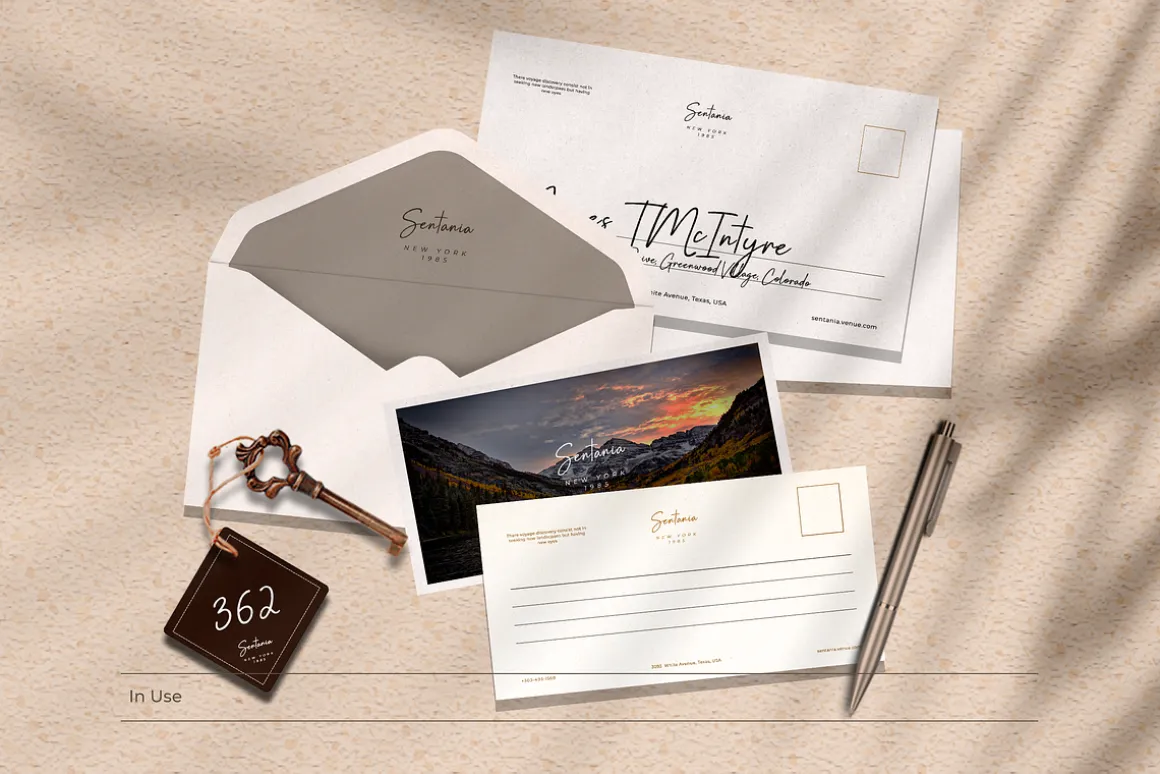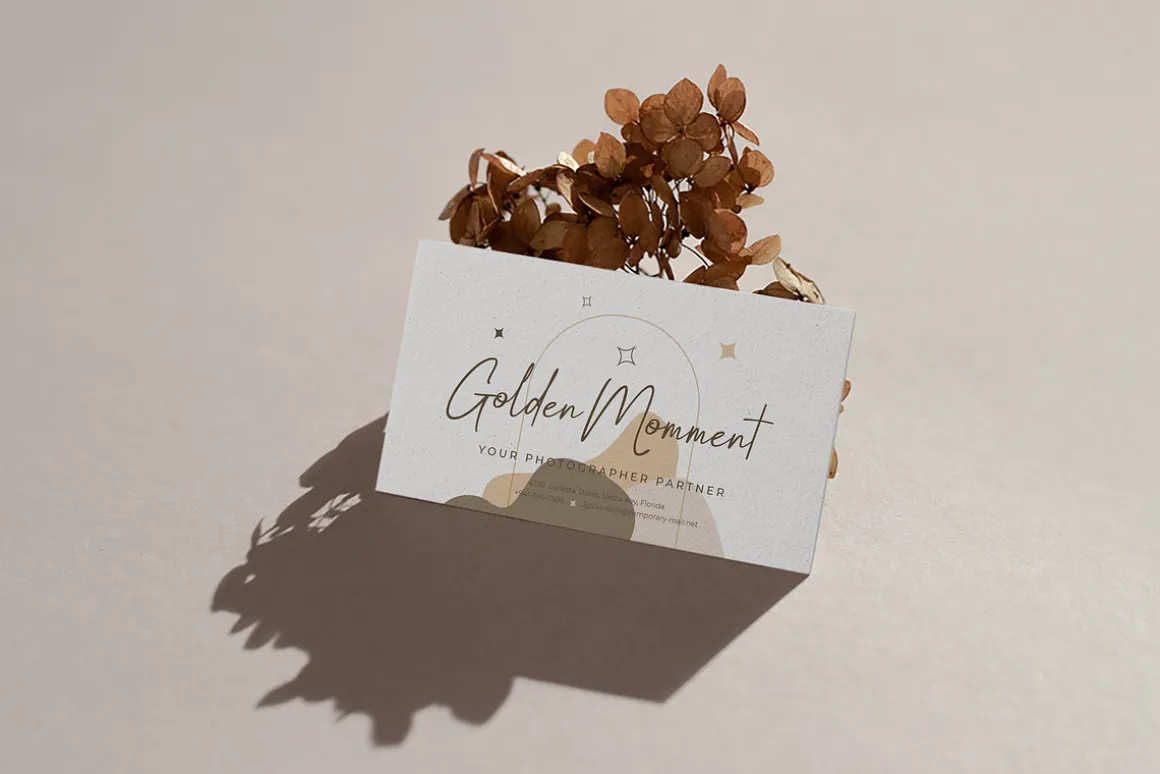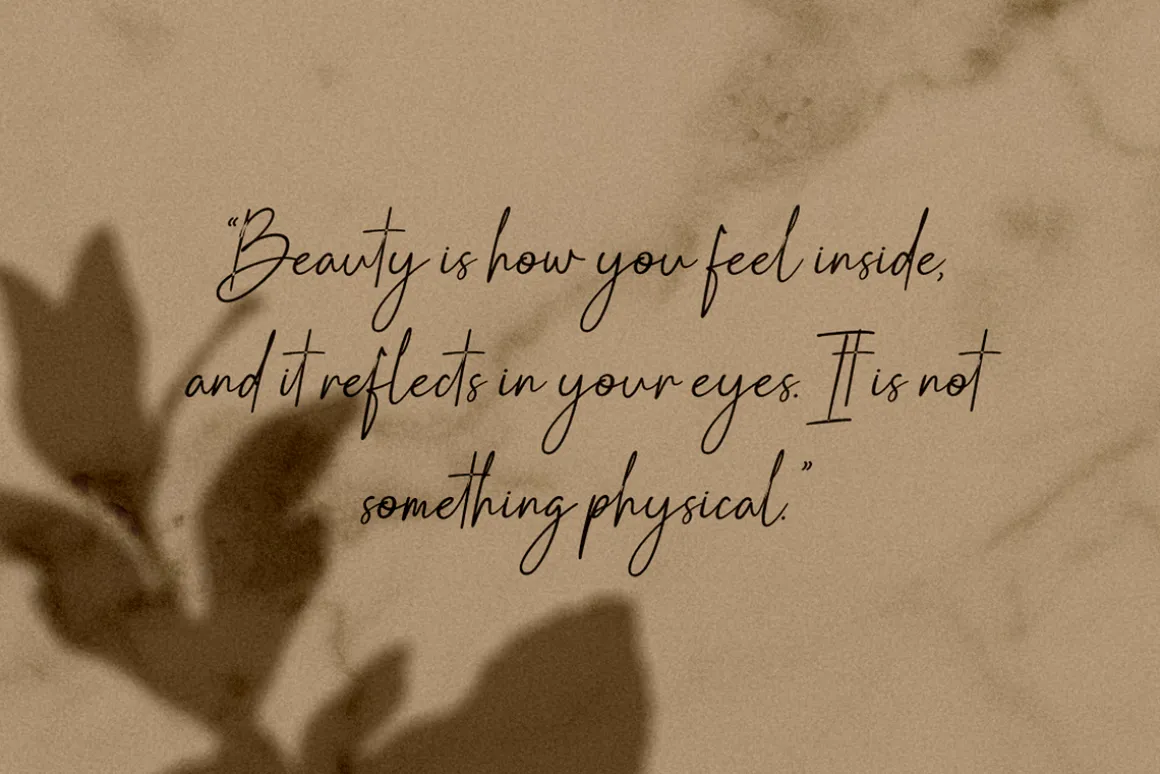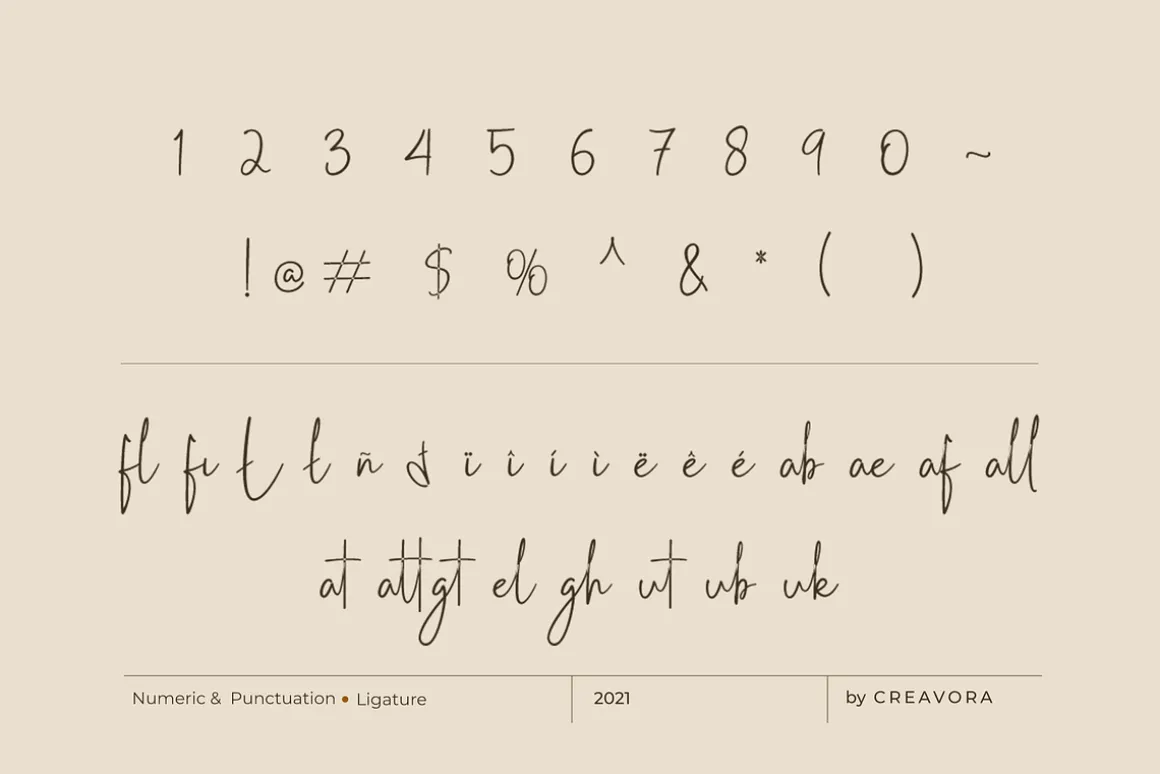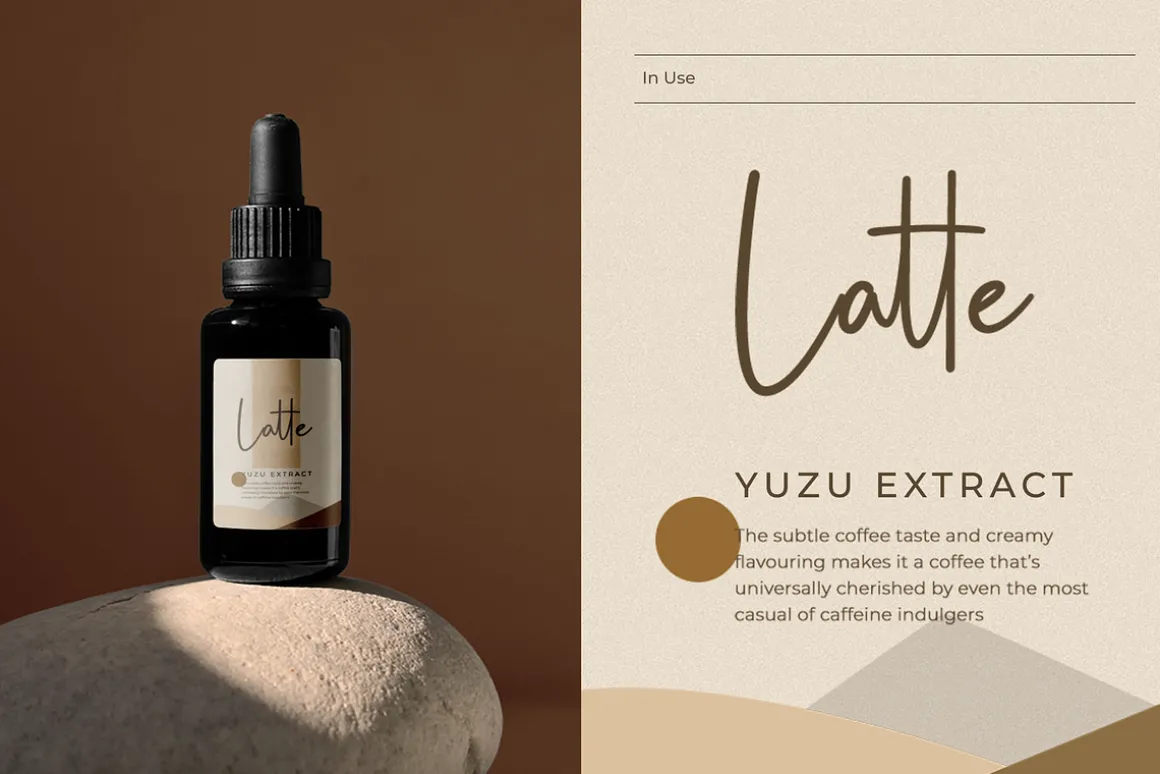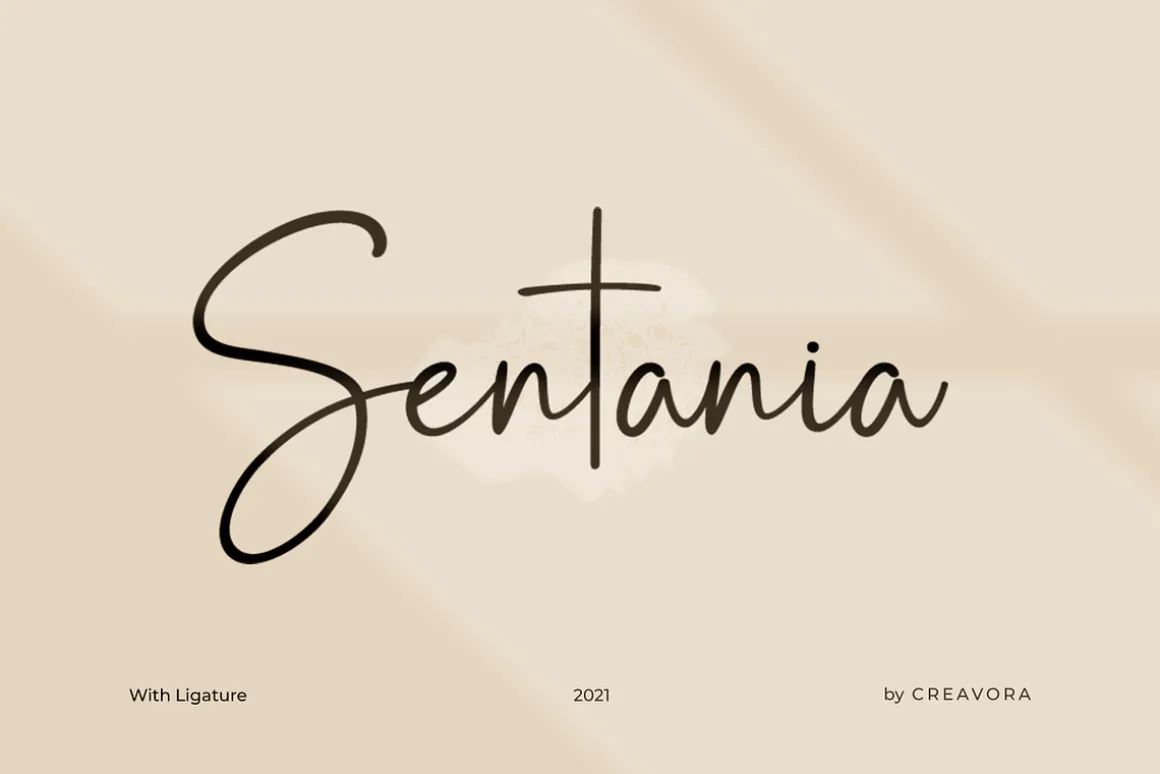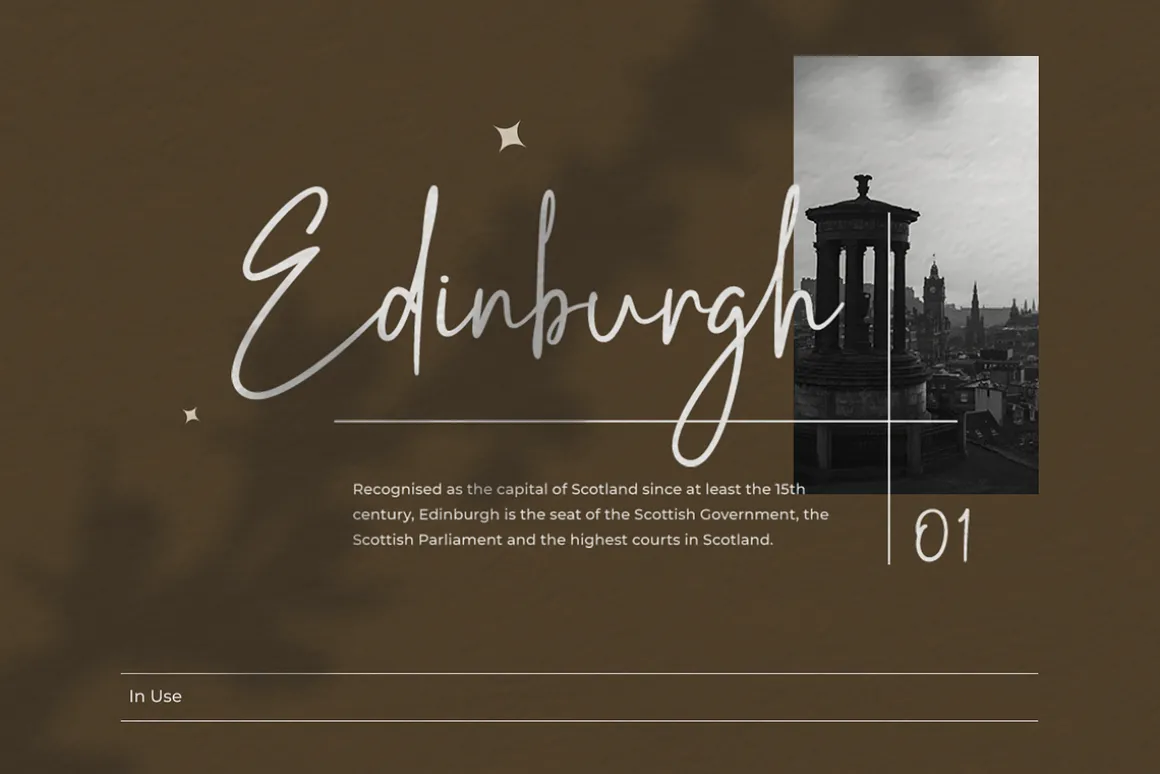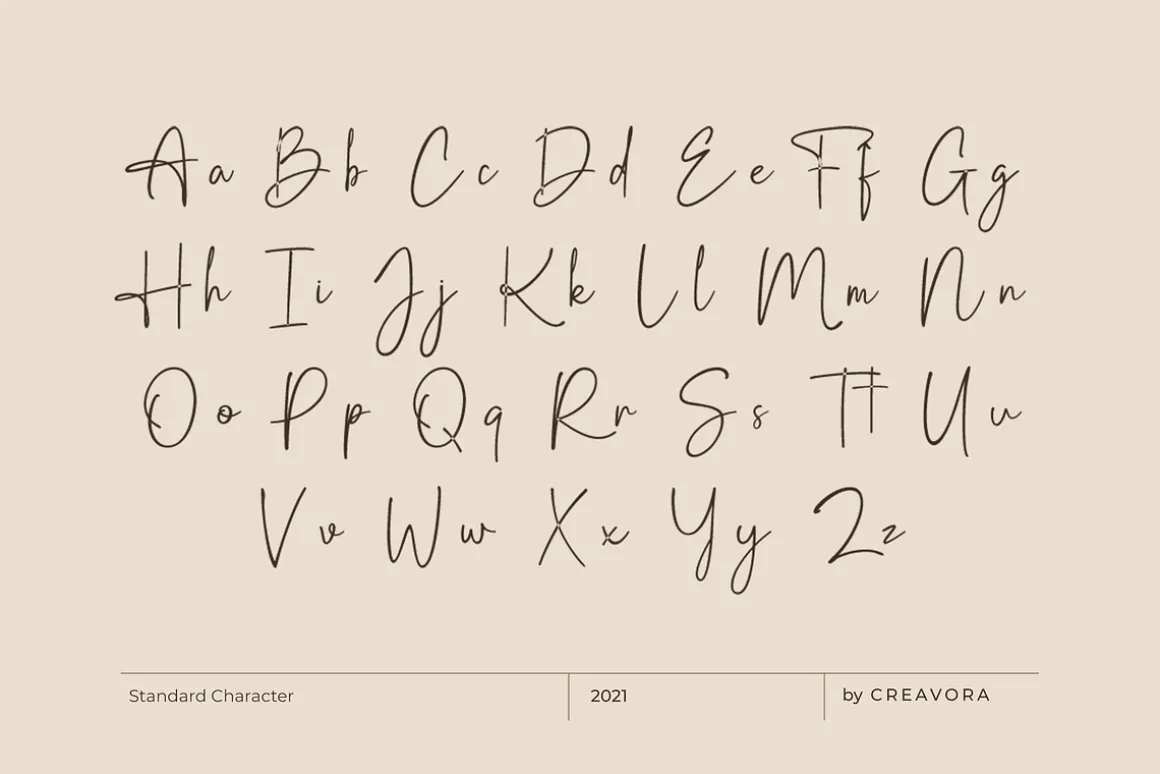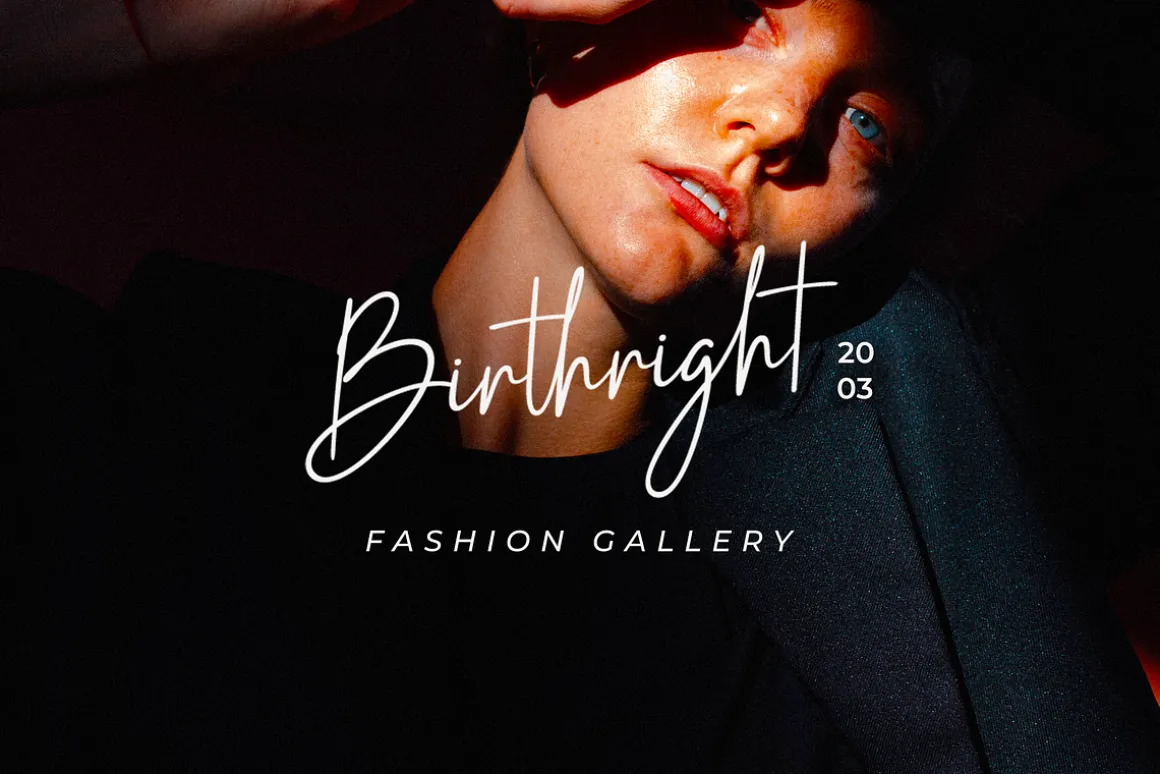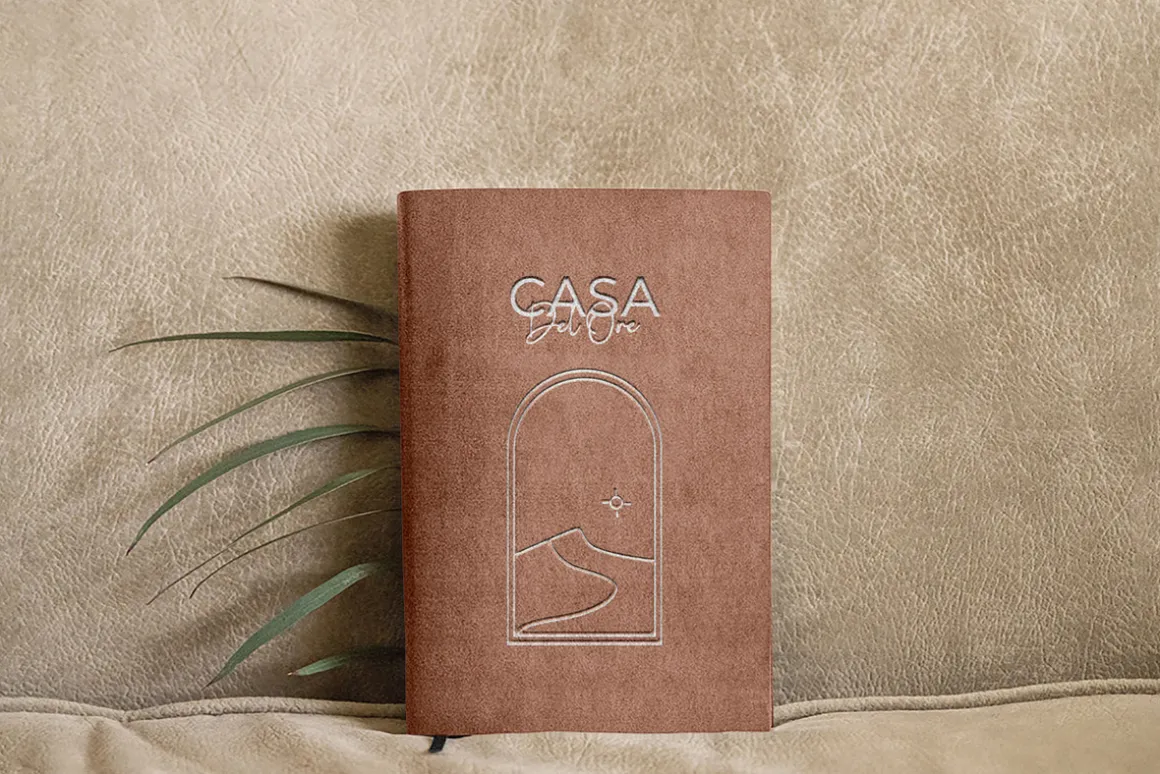
Introducing Sentania Font
Sentania is a beautiful handwriting font. Its casual charm makes it appear wonderfully down-to-earth, readable, and, ultimately, incredibly versatile. Sentania will look outstanding in any context, whether it’s being used on busy backgrounds or as a standalone headline!